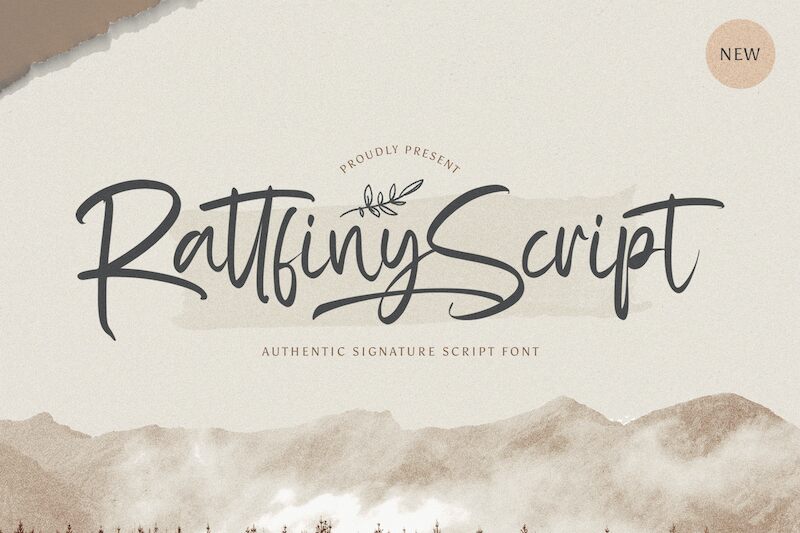
Rattfiny Script
Rattfiny Script, a handwritten font designed by Virgiawan Listanto, is the perfect choice for projects requiring a light, elegant touch. Its graceful curves and delicate weight make it ideal for wedding invitations, logos, greeting cards, and more.